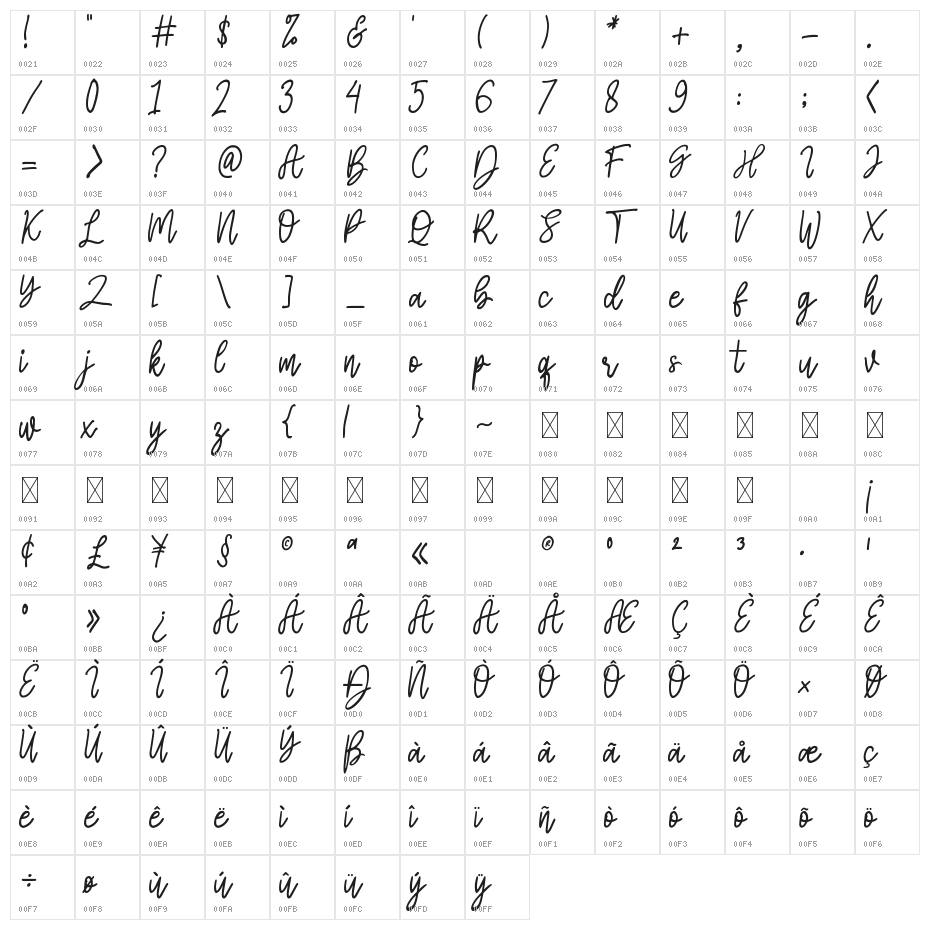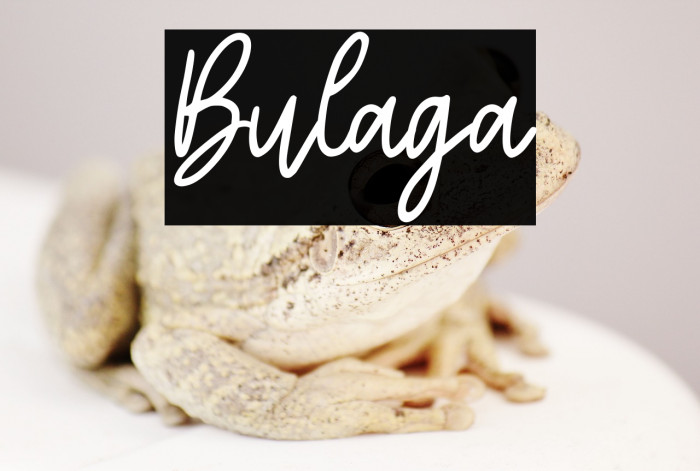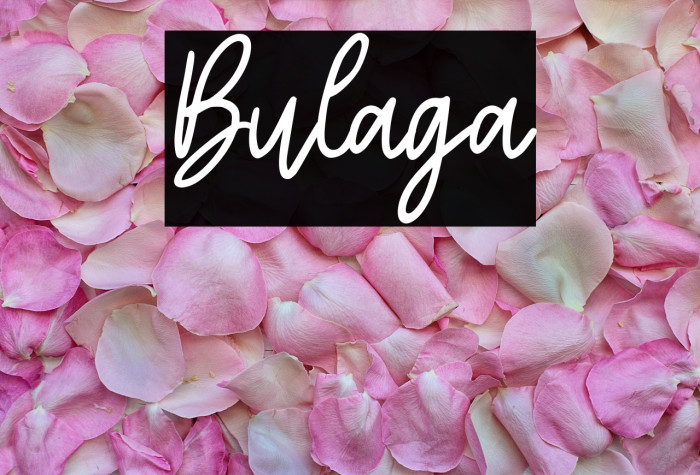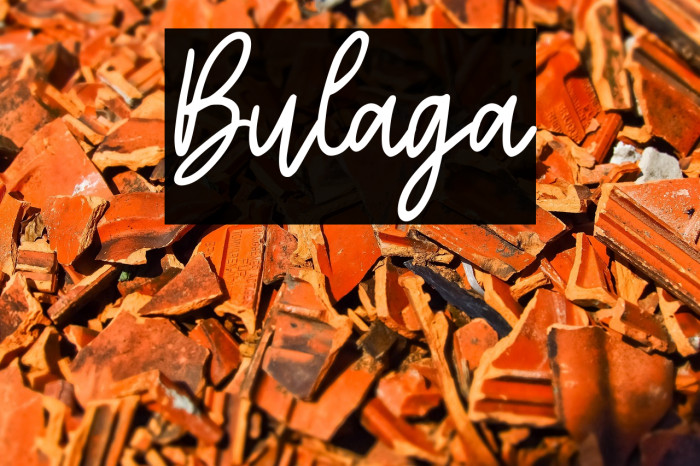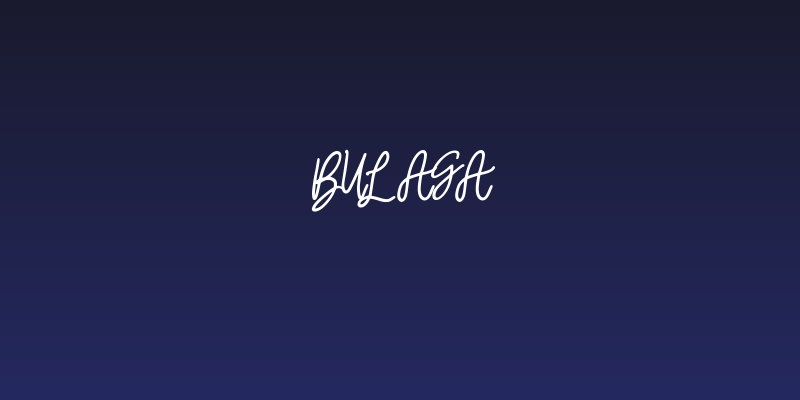
Bulaga Font
Bulaga Description
This font exudes a lively and energetic script style, characterized by its fluid and connected letterforms. The strokes are smooth and exhibit a natural flow, reminiscent of casual handwriting. The uppercase letters maintain a consistent height, while the lowercase letters are slightly smaller, adding to the font's dynamic appearance. The numbers and special characters are crafted with the same attention to detail, ensuring a cohesive look across all elements. This font is perfect for projects that require a personal touch, such as invitations, greeting cards, or branding materials that aim to convey warmth and approachability.
ContrastMedium
Overall StyleCasual, Handwritten
Use CaseHeadlines, Logos, Invitations
Proposed ProjectsIdeal for invitations, greeting cards, personal branding, and any project needing a warm, personal touch.